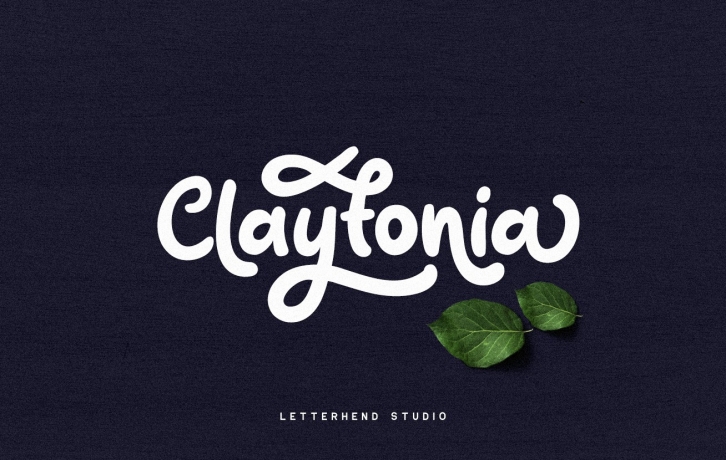
Claytonia Bold Script is a trendy and unique font with an authentic style. It was designed by Letterhend and it's a great choice for creative people who need such a font. It was released on September 23, 2017 and the file size is 9.92 MB. Claytonia Bold Script will add an organic vibe to any design idea!